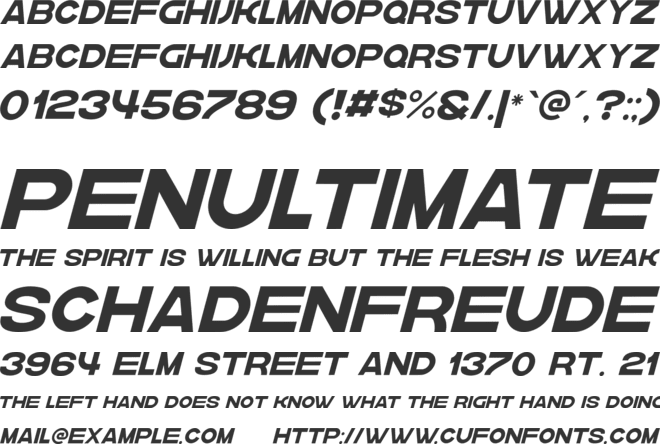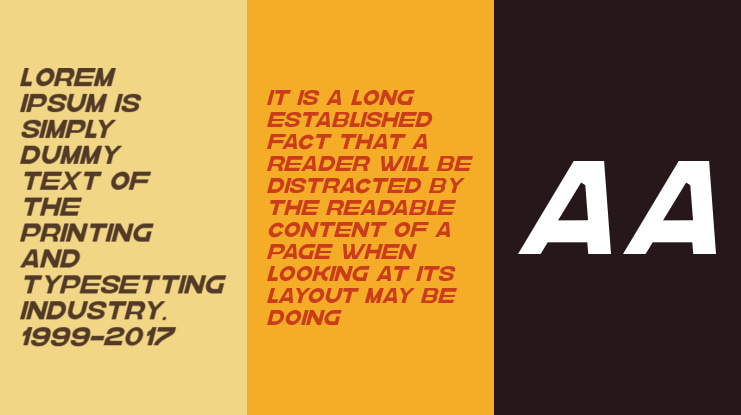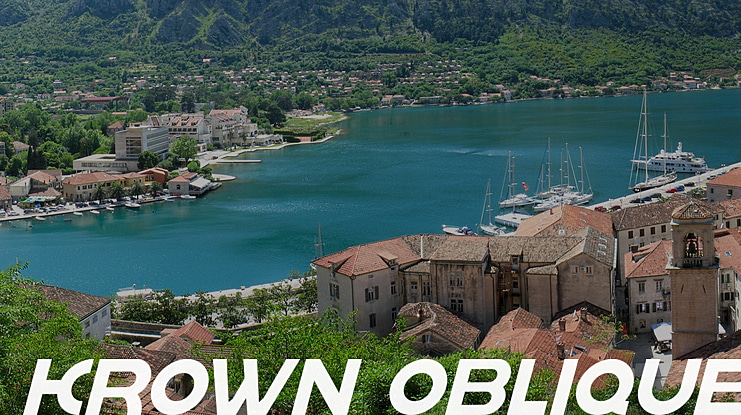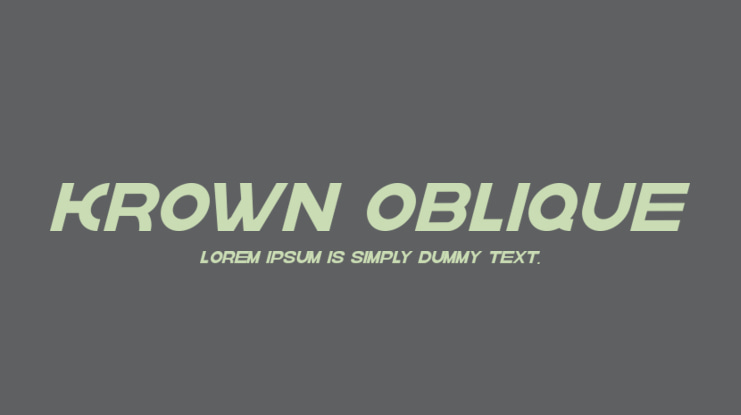
krown oblique Font Family
KROWN V 1.1 a Modern Strong Geometric Sans Serif with 6 familly style. 100% Free for personal use & commercial use. Donations for a cup of coffee if you happy with this work ;  free font for all you big bold font lovers